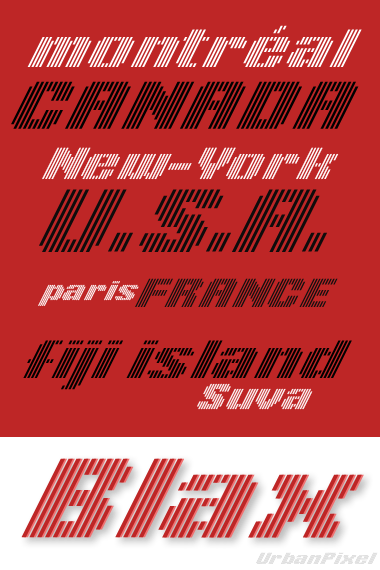
Ultra clean, Stunning effect, Well propotionned, Beautiful sample, (I love the rendition of Blax), Grey coloring at pixel size, I simply love this.
A remark, though : Maybe the w looks a bit queer, with its left straight stroke descending to the basis line, I think I would have "rounded" it instead.
It manages to blend strength with lightness - and look really great. 10/10
Great. A case can be made for that crazy w. Well, it's a not-quite inversion of the m, and why not? It's playful, which I like. The rest of it is perfectly restrained (where's the oh-so-pink dot, I want to know)and admirably wrested from those unwilling bricks. Let the w shout a bit, the face has certainly earned it.
Very cool...great job.
hmmm the "w" case...well I agree, in fact I did'nt pay much attention on this glyph... now I realise it, I'll correct it
I'm unhappy with my lowercase "y" I had a hard time to create it and I'm still unsatisfied, any suggestion ?
(where's the oh-so-pink dot, I want to know), English is not my first language so I don't get the meaning of this one, can you explain it ?
Pink dot: that's me hinting to Admin that this font needs to be top-picked.
As for the l/c y: I think your solution is as optimal as it's going to get. That's the charm of Fontstruct: it's hard.
I could hardly find anything to complain about. Blax looks simple, well crafted, almost complete in every way, and probably ready to roll on the press. It joins my list of Faves. 10/10
The w is surely more pleasant like this. Good improvement.
and thanks for all the characters added, including the-in-the-o necessary to perfectly write in french